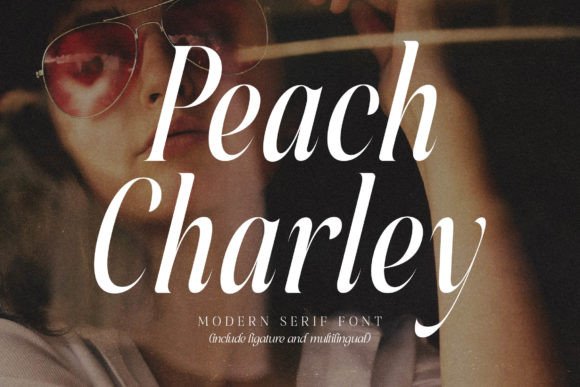
Behold, Peach Charley, a serif font family that exudes timeless elegance with a touch of contemporary flair, crafted with love by Storytype Studio. This font is not just a collection of letters; it's an art form, a tool to transform your creative visions into tangible masterpieces.
Picture this: you're a boat lettering enthusiast, passionate about transforming ordinary vessels into floating works of art. Peach Charley is your secret weapon, the font that dances gracefully across the curves of your boat, captivating onlookers with its effortless beauty. The smooth, flowing strokes of Peach Charley mimic the gentle waves, evoking a sense of serenity and freedom.
But Peach Charley is not confined to the nautical realm. It's a versatile font that thrives in various creative endeavors. Envision a fashion brand's logo, its name emblazoned in Peach Charley, embodying sophistication and luxury. Watch as the letters become the centerpiece of a movie's title sequence, setting the tone for an epic tale. Let Peach Charley adorn the pages of a captivating magazine, drawing readers into a world of stories and imagination.
The applications of Peach Charley are endless, limited only by the boundaries of your creativity. Its elegant curves add a touch of class to quotes and lettering, while its modern aesthetic keeps your designs fresh and contemporary. Peach Charley is the perfect font for those who seek a balance between tradition and innovation, a font that speaks to the heart and ignites the imagination.
Don't settle for ordinary fonts that blend into the background. Embrace the power of Peach Charley, a font that commands attention, sparks conversations, and leaves a lasting impression. Let your creativity soar, let your designs shine, and let Peach Charley be your trusted companion on this artistic journey. Download Peach Charley today and unlock a world of endless possibilities.